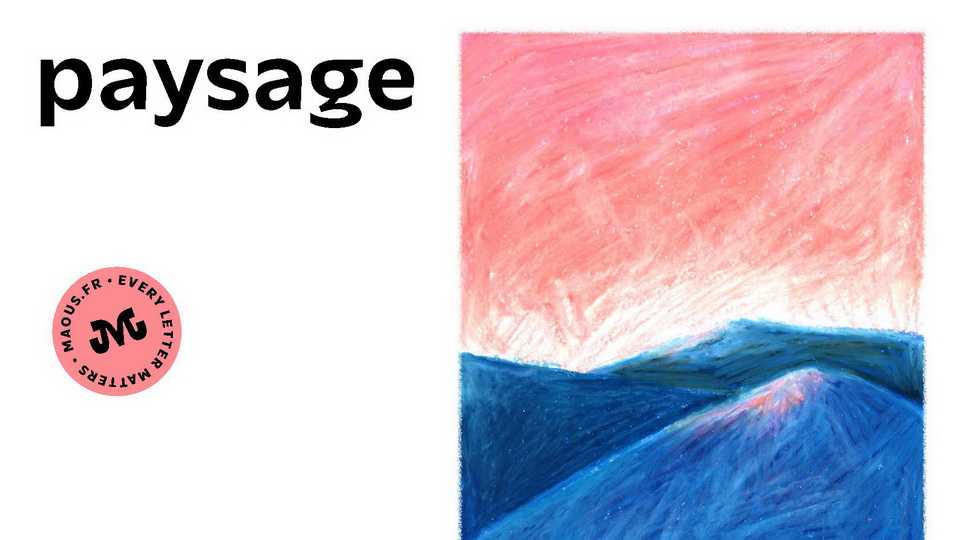
Download Paysage typeface, a humanist-style sans serif font family. It’s characterised by a distinctive “g” and a regular rhythm. Paysage has been designed to give a feeling of simplicity and tranquility to the reader.